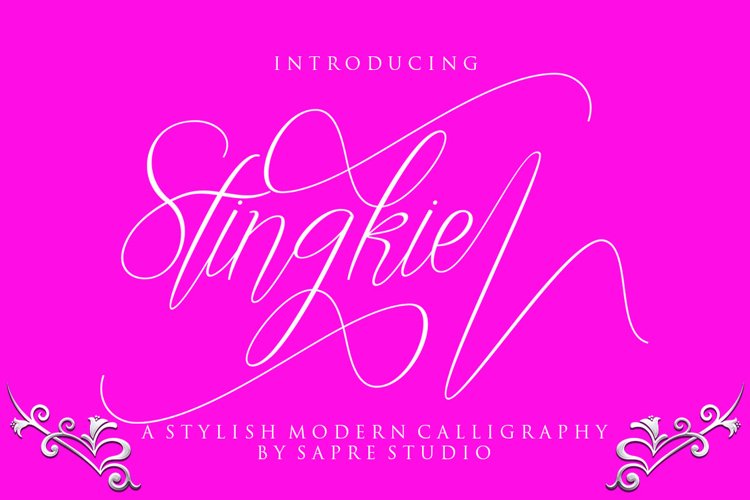
Stingkie Script is a font that has various basic lines, fine lines, classic, elegant, modern touches. Can be used for various purposes.
if you want to use it for your work, this font can be used easily and simply because there are many features in it to load lower complete letter sets and include initial and terminal letters, alternatives, ligature and support for many languages.